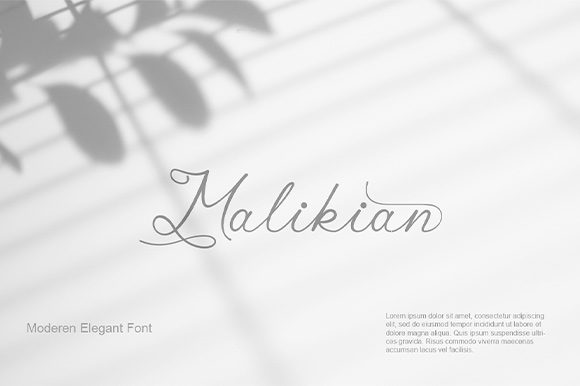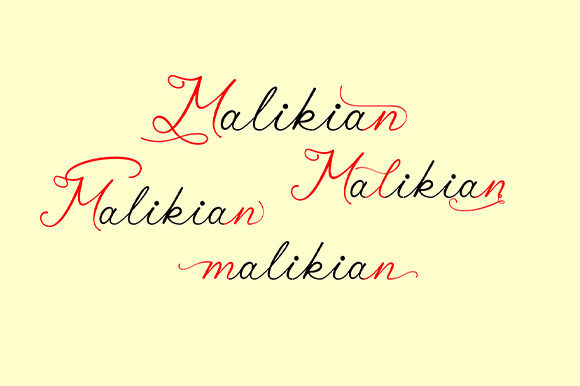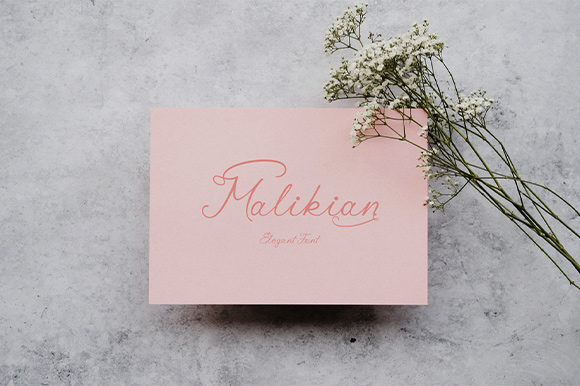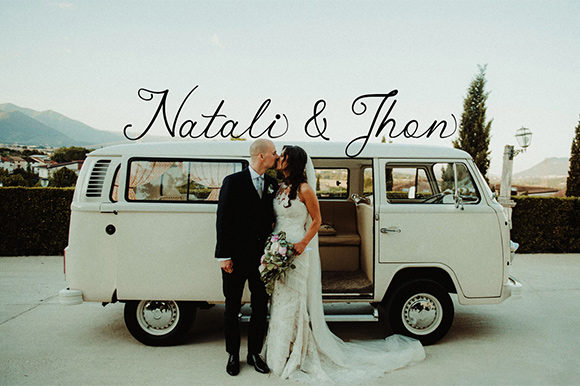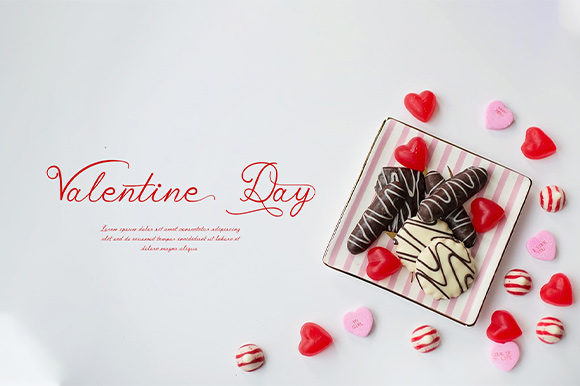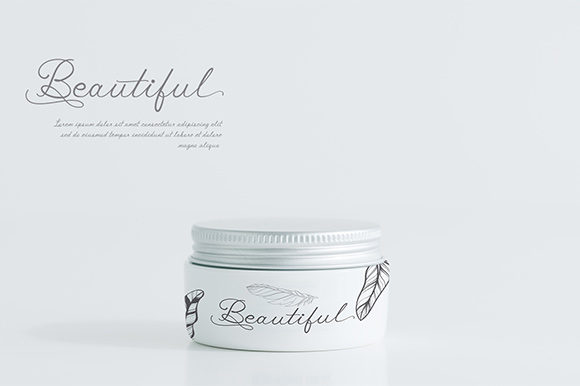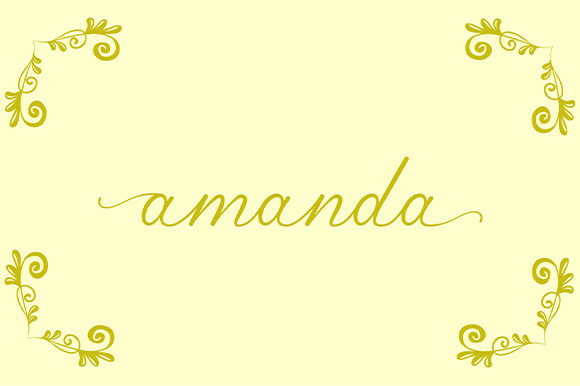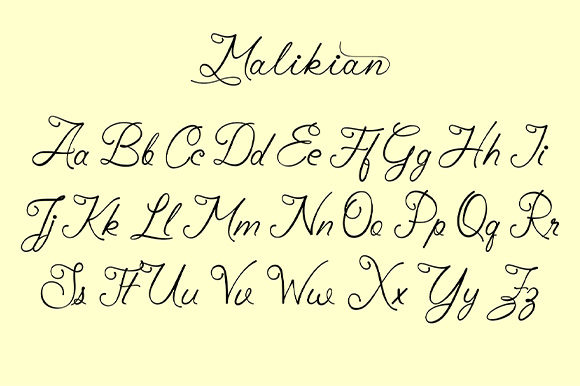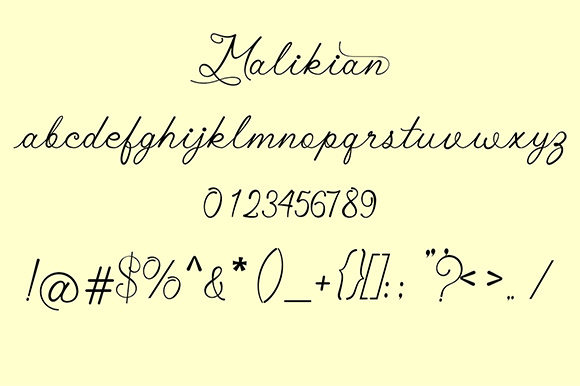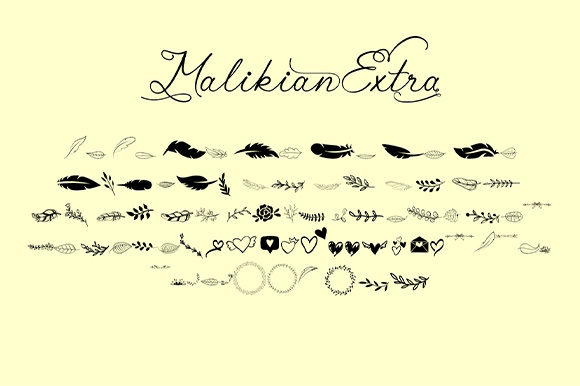
Malikian Font
About Malikian Font
Malikian is a sweet and playful handwritten font that will work well in a wide variety of design projects. Use it to add a personal feel to any design idea!